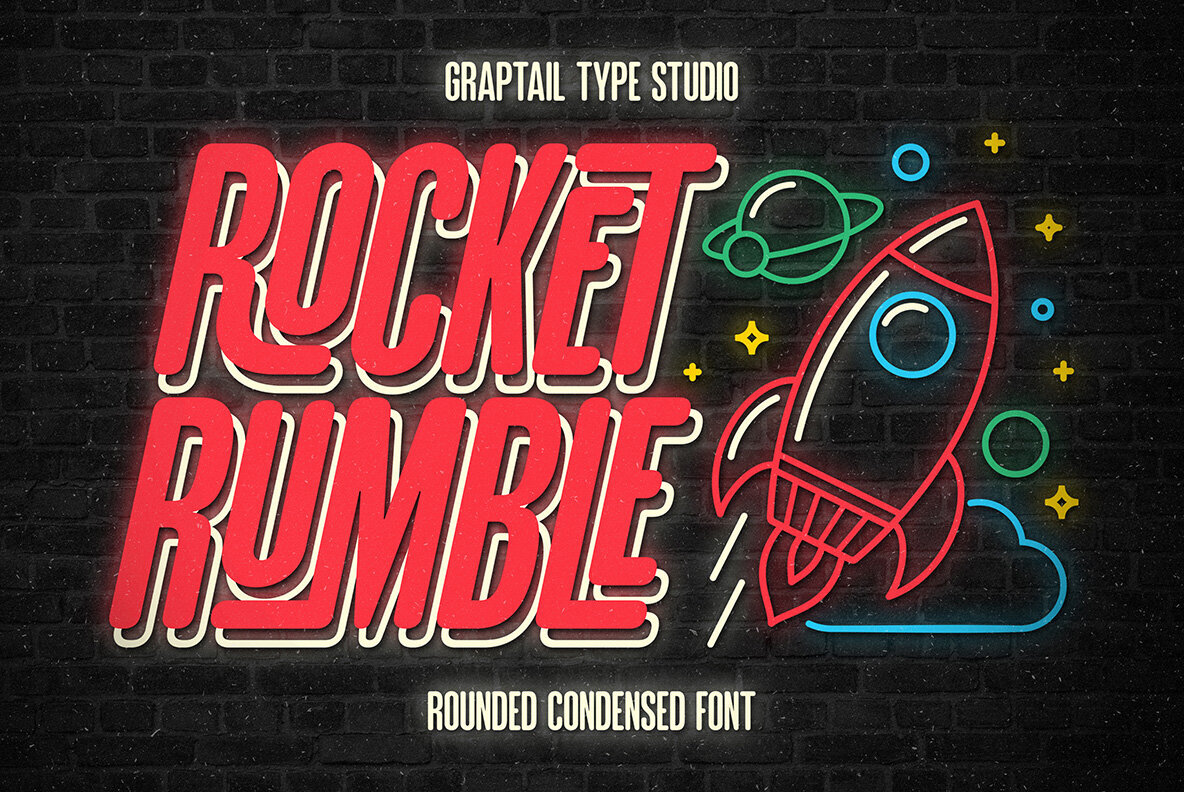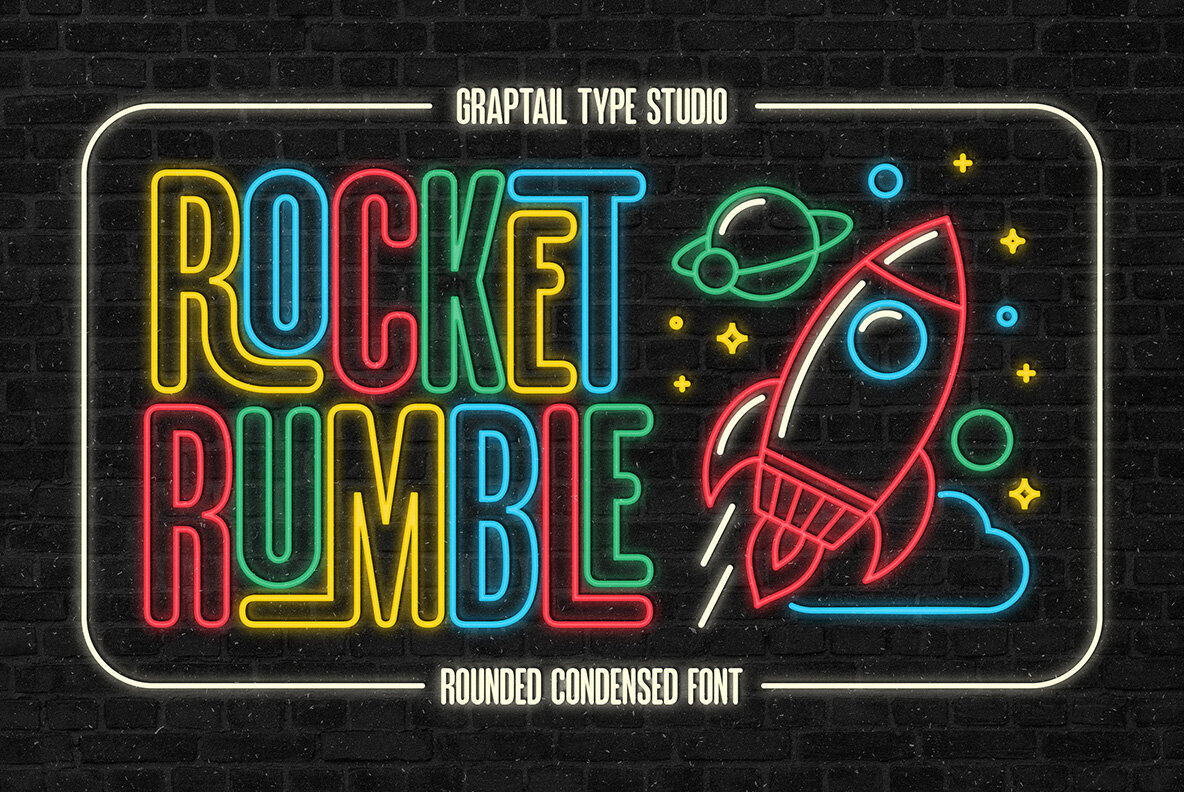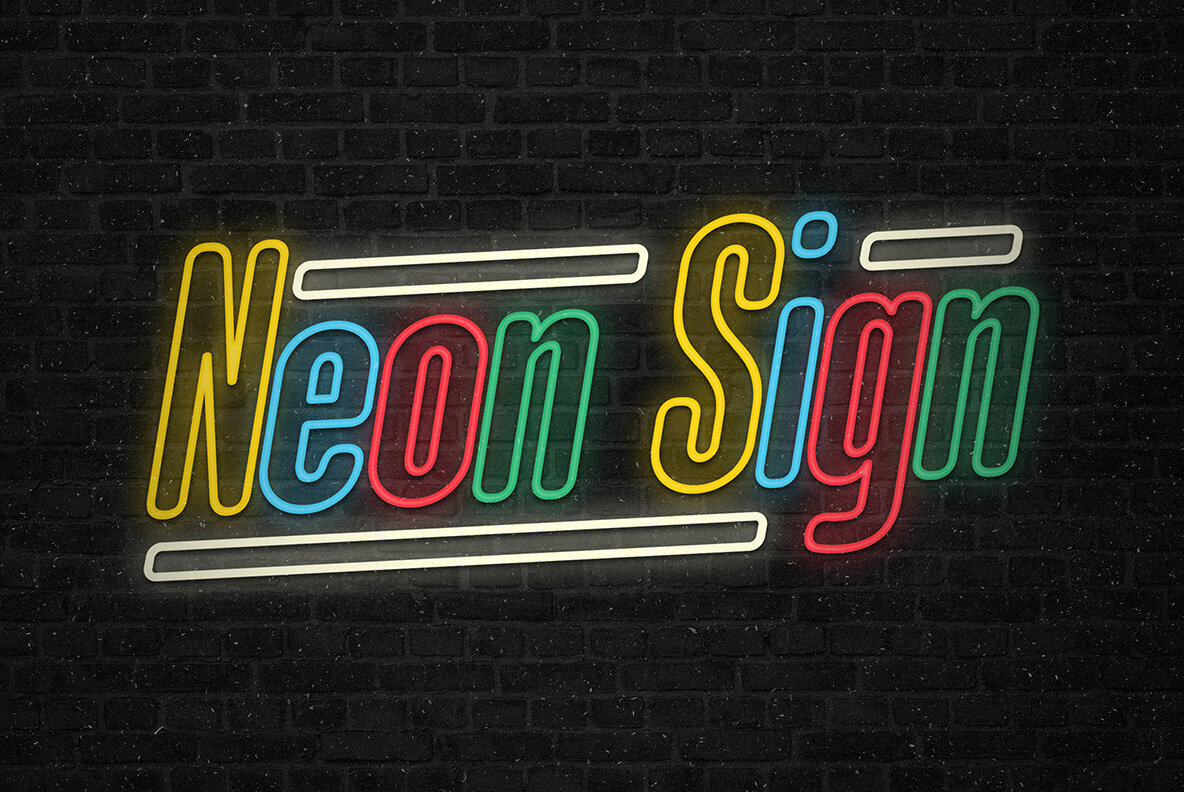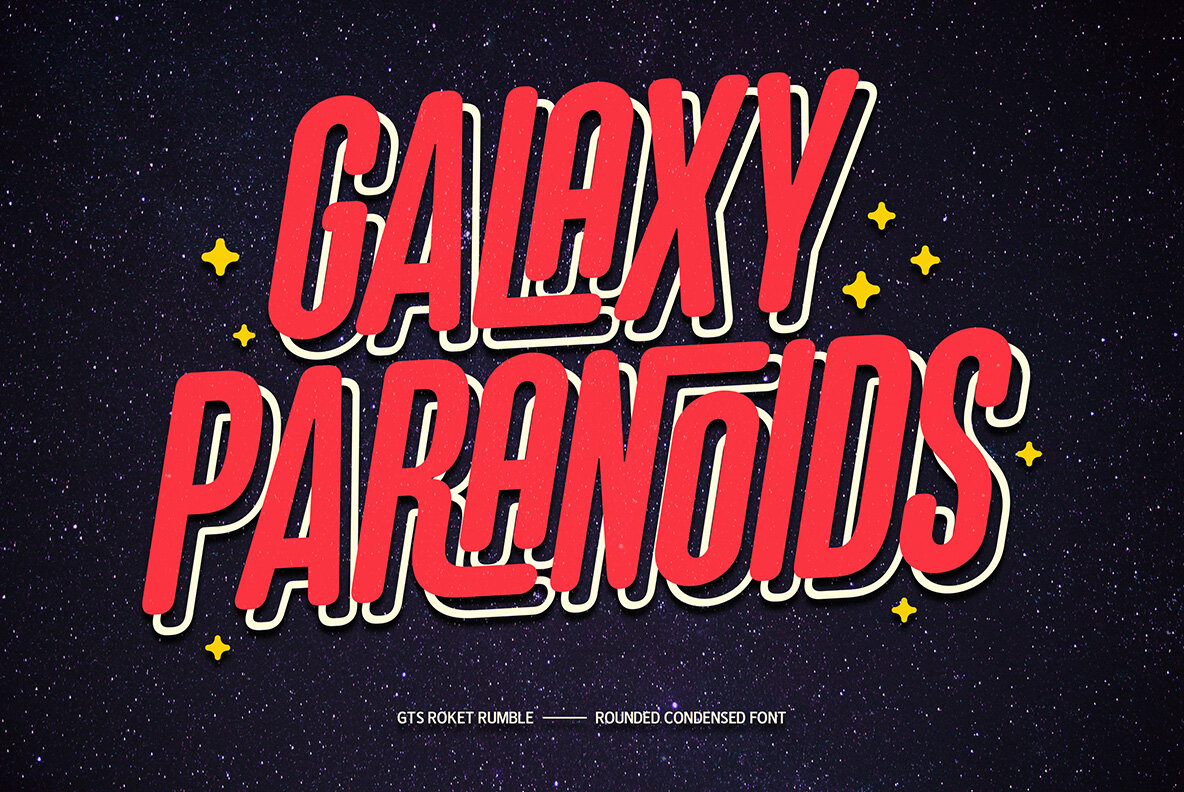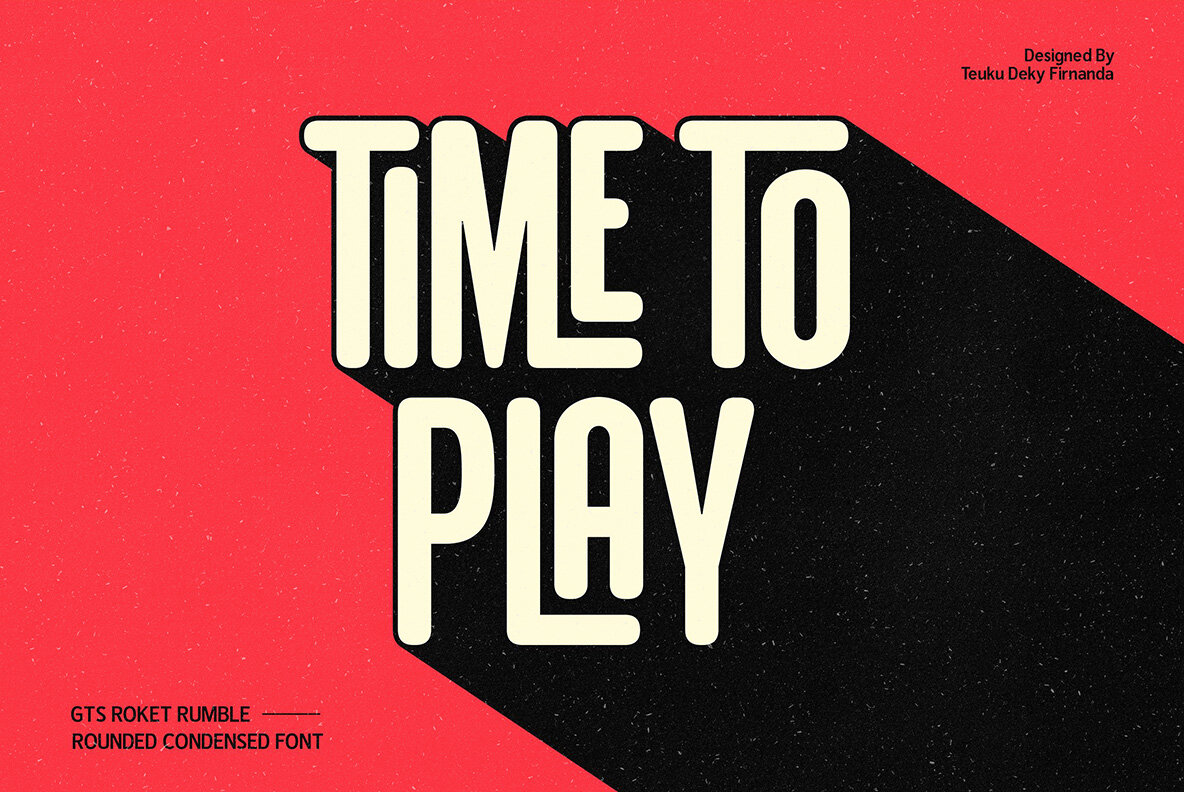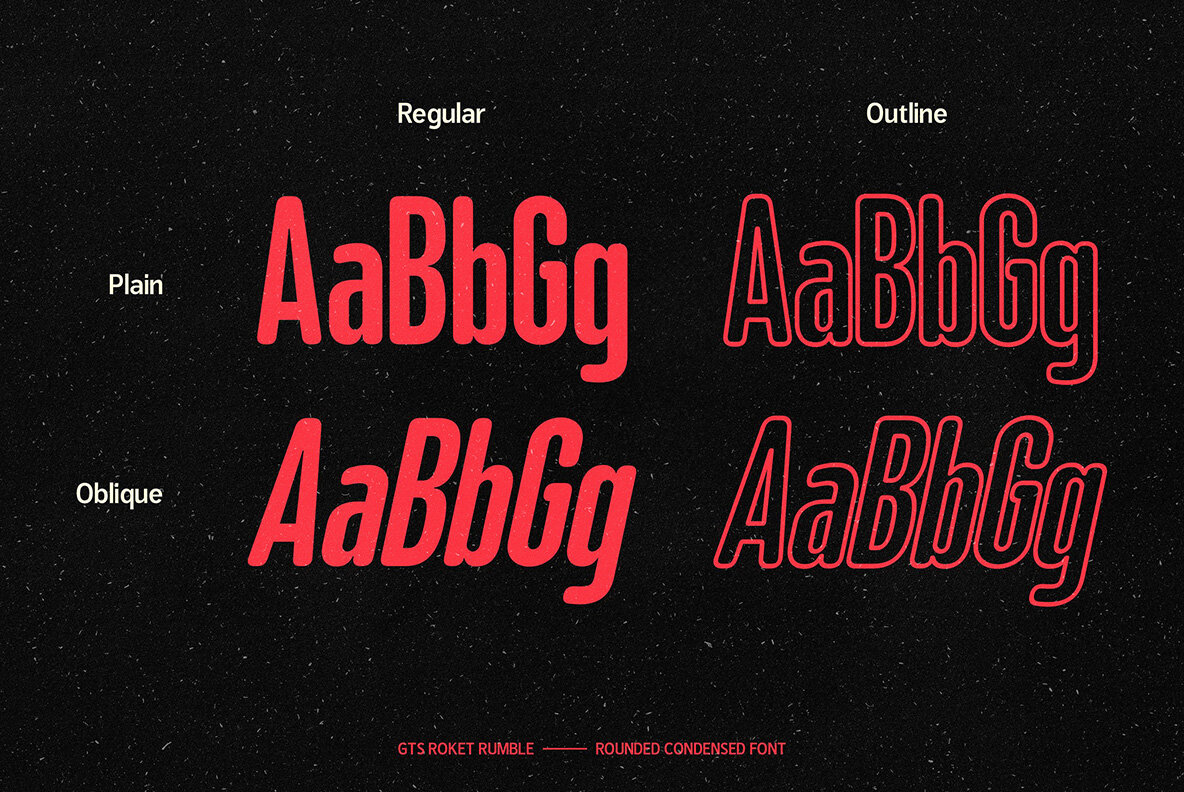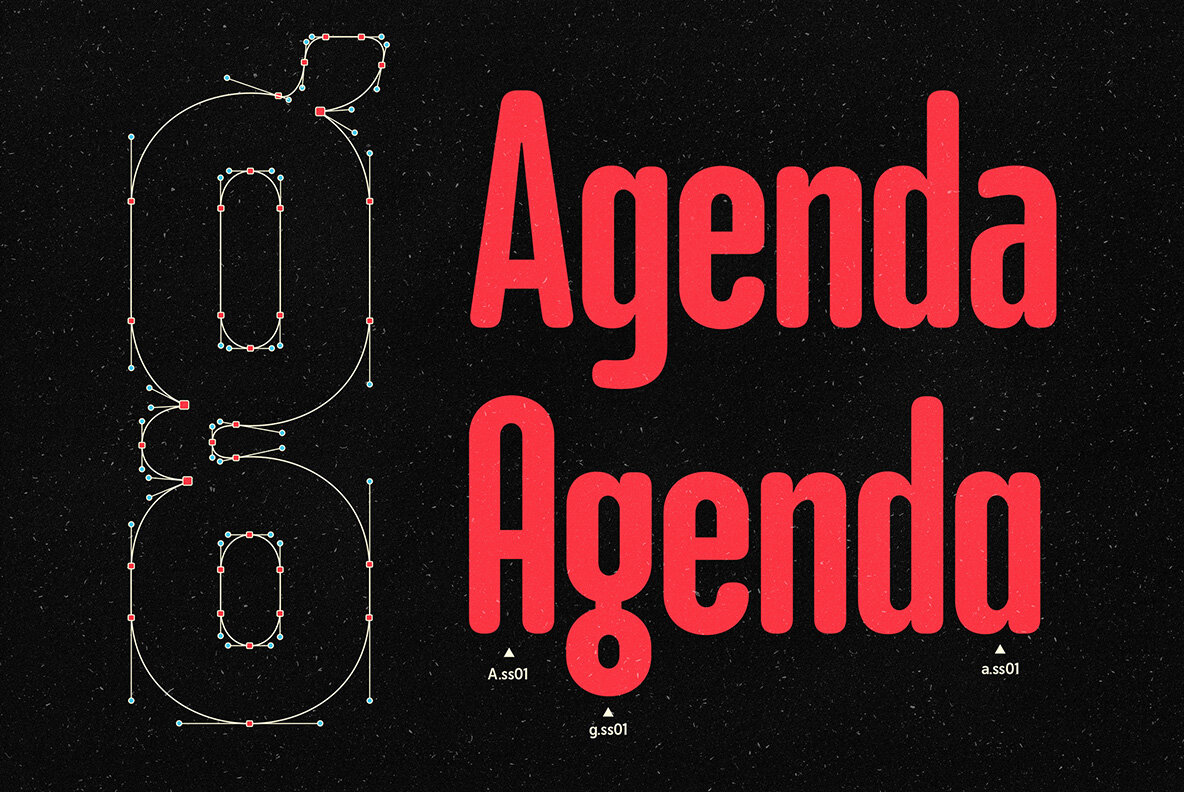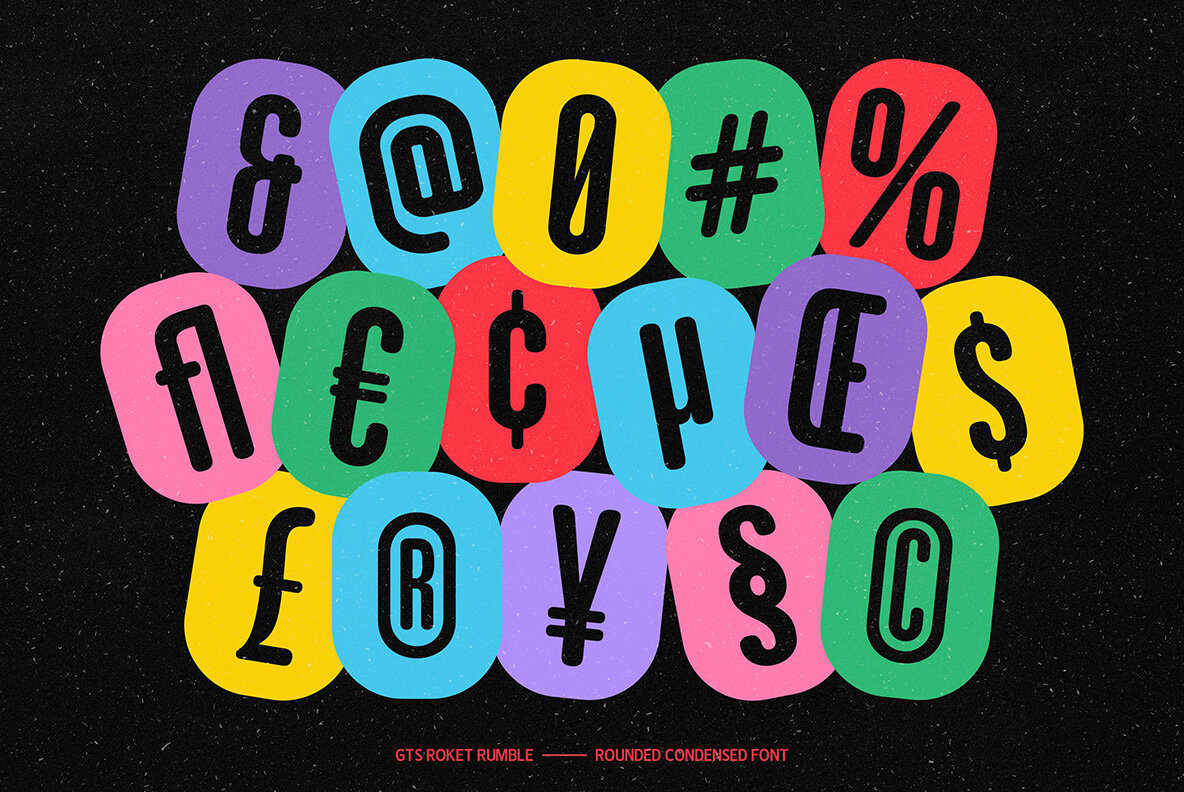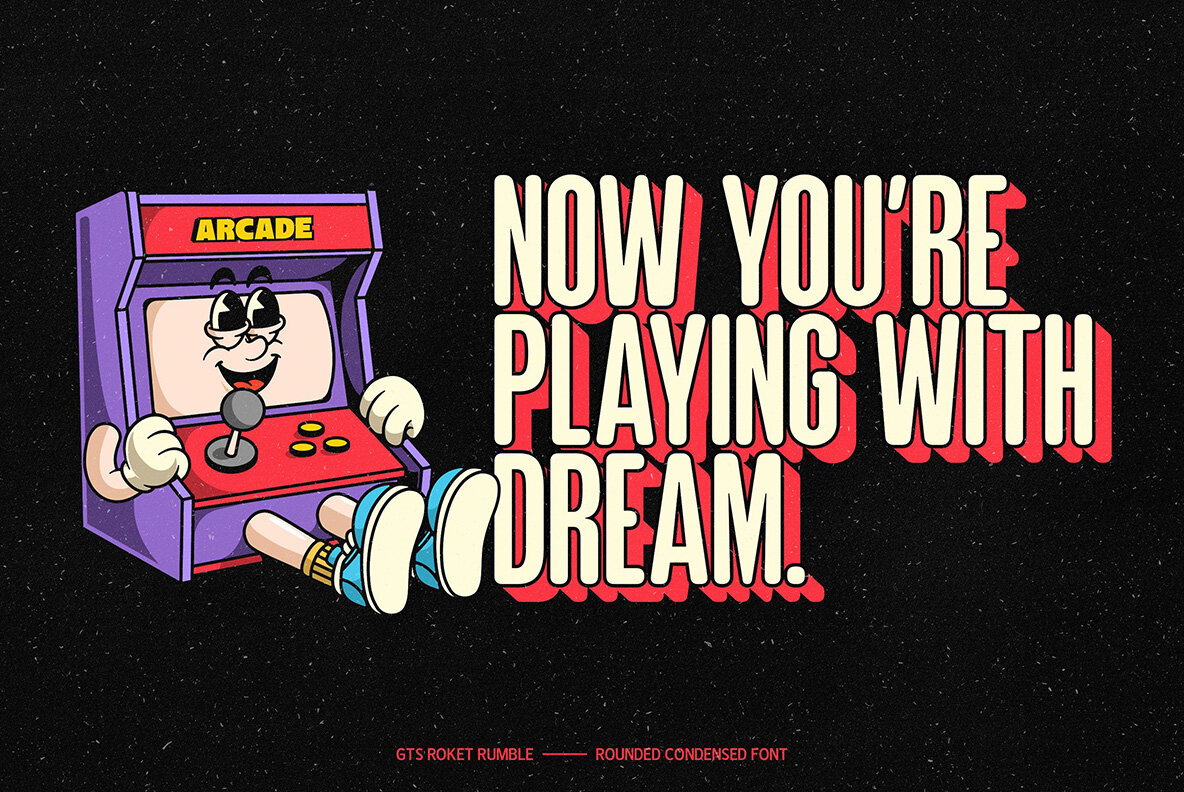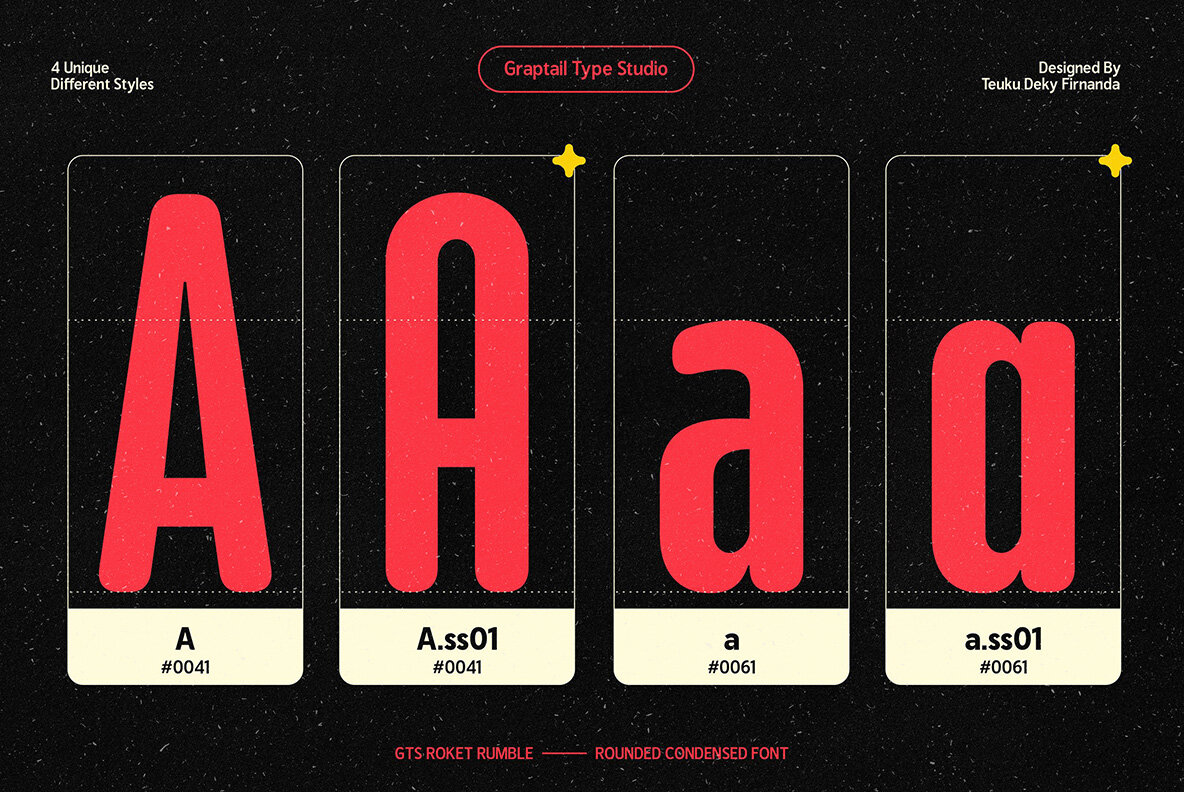
GTS Rocket Rumble Font
GTS Rocket Rumble is a dynamic and playful font that captures the essence of retro design through its rounded, condensed typeface. This typeface offers two distinctive styles, Regular and Outline, providing flexibility for your creative projects. With smooth edges and a modern, sleek structure, it's perfect for achieving a vintage look in contemporary designs. The font excels in neon-themed gaming graphics, adding a bold, glowing effect that enhances digital or interactive visuals.
Ideal for projects seeking a fun, retro-futuristic vibe, GTS Rocket Rumble combines legibility with unique character. Its energetic style is well-suited for a variety of design applications, delivering a nostalgic yet stylish impact. Whether you're creating posters, digital ads, or themed graphics, this typeface brings a touch of vintage flair with a modern twist.